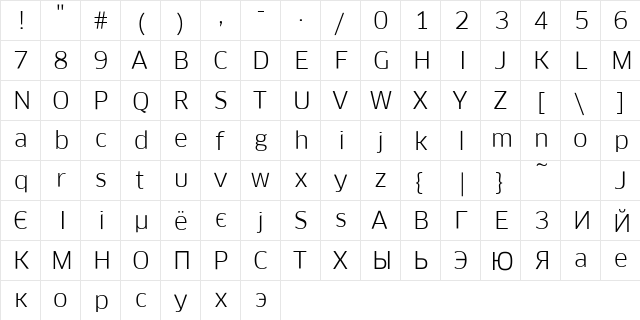
ClanPro Book
| Foundry | Lukasz Dziedzic |
| Designer | Lukasz Dziedzic |
Design Context for ClanPro Typeface
ClanPro is a composed and adaptable typeface that performs quietly and consistently across a wide range of design contexts.